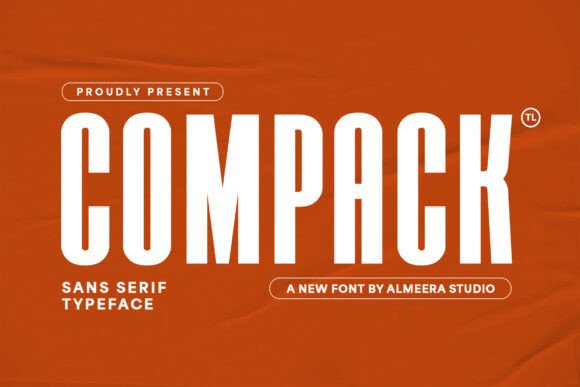
Introducing Compack Font: The Ultimate Modern Sans Serif Typeface
In the world of typography, fonts play a crucial role in conveying messages, expressing emotions, and creating a lasting impression. For designers, finding the perfect font that embodies their creative vision can be a daunting task. However, with the introduction of Compack, a modern sans serif typeface, designers can now elevate their typographic game and create stunning visual content that commands attention.
What is Compack Font?
Compack is a bold, modern sans serif typeface designed to make a statement. Its condensed nature and sturdy letterforms ensure a potent, self-assured aura that is perfect for assertive headlines, potent branding schemes, athletic graphics, and up-to-the-minute advertising. Despite its condensed nature, Compack’s letterforms are remarkably legible, making it a versatile font suitable for a multitude of uses.
Key Features of Compack Font
- Modern Sans Serif Design: Compack boasts a sleek, contemporary design that exudes sophistication and elegance.
- Condensed Nature: Its condensed letterforms make it perfect for headlines, titles, and short texts where space is limited.
- Sturdy Letterforms: Compack’s letterforms are designed to be sturdy and robust, ensuring visual impact without compromising legibility.
- Versatility: Compack is remarkably versatile and can be used across various mediums, including print, digital, and web design.
Use Cases for Compack Font
Compack is an incredibly versatile font that can be used in a variety of creative projects. Here are some use cases where Compack excels:
- Assertive Headlines: Compack’s bold and condensed design makes it perfect for creating attention-grabbing headlines.
- Potent Branding Schemes: Compack’s sturdy letterforms and modern design make it an excellent choice for branding schemes that require a bold and sophisticated look.
- Athletic Graphics: Compack’s bold and dynamic design makes it suitable for athletic graphics, such as sports logos, jerseys, and promotional materials.
- Up-to-the-Minute Advertising: Compack’s modern design and condensed nature make it perfect for creating eye-catching advertisements that require a bold and attention-grabbing typography.
Benefits of Using Compack Font
Compack offers several benefits to designers, including:
- Fresh and Polished Look: Compack infuses your work with a fresh, polished, and vivacious vibe that is sure to captivate your audience.
- Improved Legibility: Despite its condensed nature, Compack’s letterforms are remarkably legible, ensuring that your message is conveyed clearly and effectively.
- Increased Versatility: Compack’s versatility makes it suitable for a wide range of creative projects, from print and digital to web design.
- Time-Saving: With Compack, designers can save time and effort in finding the perfect font for their projects, allowing them to focus on other creative aspects.
Design Tips for Using Compack Font
To get the most out of Compack, here are some design tips to keep in mind:
- Use it Boldly: Compack is designed to make a statement, so don’t be afraid to use it boldly and prominently in your designs.
- Experiment with Colors: Compack’s modern design looks great with a variety of colors, so experiment with different color schemes to find the one that works best for your project.
- Pair it with Other Fonts: Compack can be paired with other fonts to create a unique and visually appealing typography.
- Consider the Context: Consider the context in which Compack will be used and adjust the font size, color, and style accordingly.
In conclusion, Compack is a formidable modern sans serif typeface that is designed to command attention. Its condensed nature, sturdy letterforms, and modern design make it perfect for a wide range of creative projects, from assertive headlines to potent branding schemes. With its versatility, legibility, and fresh look, Compack is an excellent choice for designers seeking a bold, unadorned aesthetic coated in a sophisticated, contemporary gloss.
FAQs About Compack Font
- What is Compack font? Compack is a modern sans serif typeface designed to make a statement.
- What is Compack font used for? Compack is suitable for a wide range of creative projects, including assertive headlines, potent branding schemes, athletic graphics, and up-to-the-minute advertising.
- Is Compack font legible? Yes, Compack’s letterforms are remarkably legible, making it suitable for use in a variety of contexts.